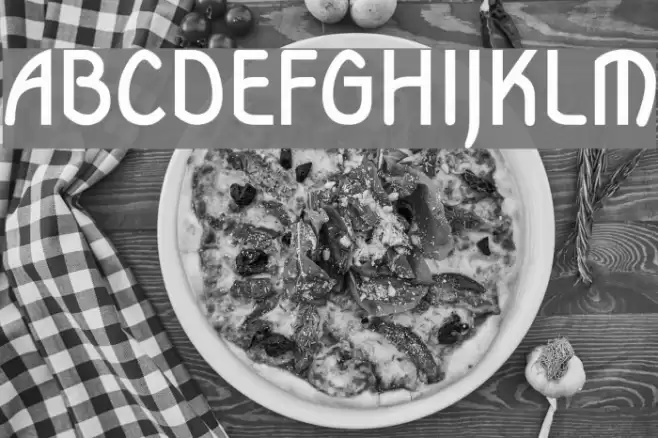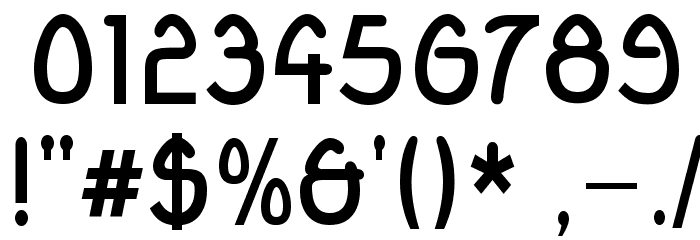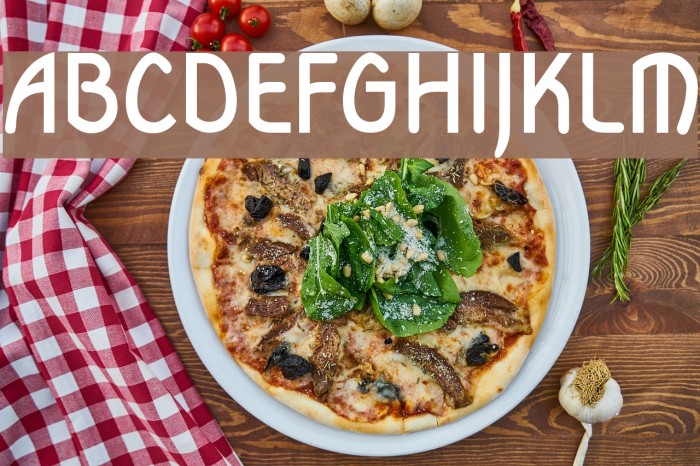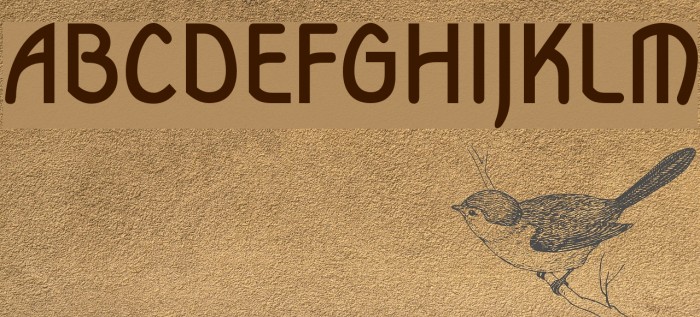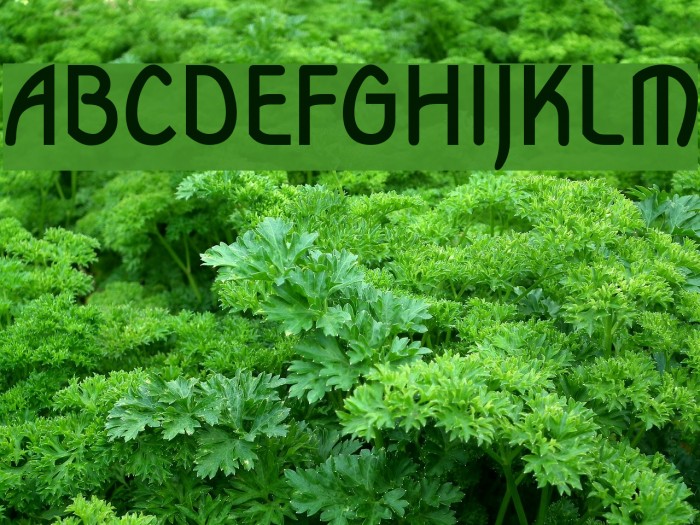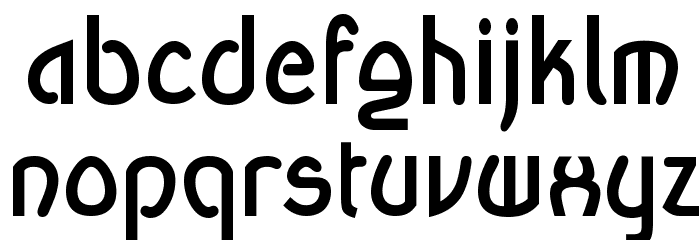
Wanda Bold Font
Wanda Bold Description
This font features a bold and modern design with a unique geometric flair. The uppercase letters are characterized by rounded edges and consistent stroke widths, giving them a smooth and approachable appearance. The lowercase letters maintain this rounded style, with some characters like 'g' and 'a' having distinctive loops and curves that add personality. The numerals are clear and bold, ensuring readability. Special characters are well-integrated, maintaining the overall aesthetic. This font's style is both playful and professional, making it versatile for various design needs.
A bold, modern font with rounded geometric characters from Retro fonts.